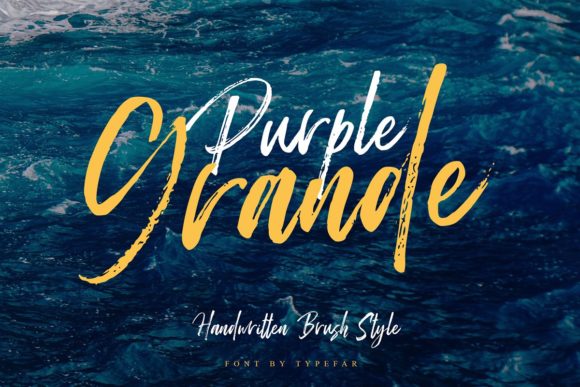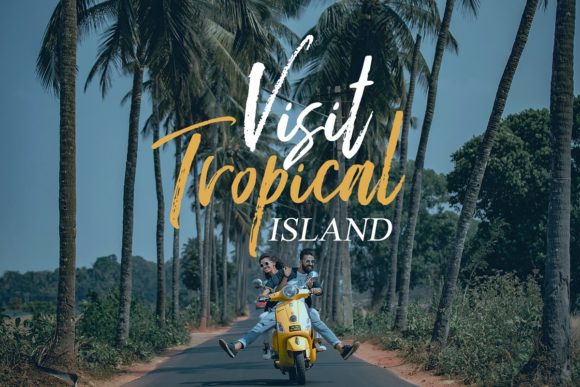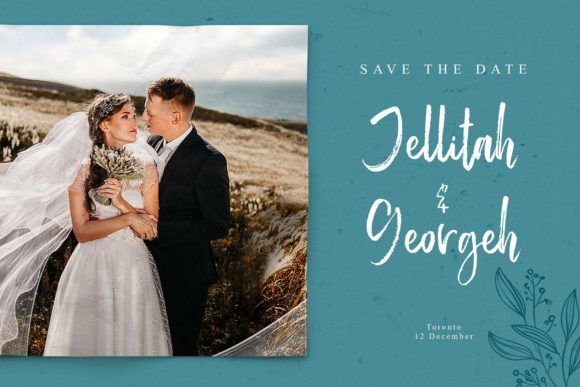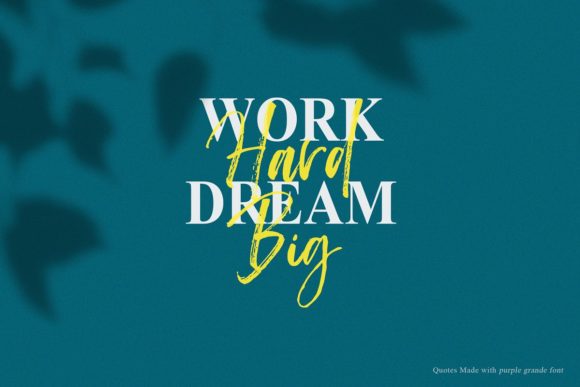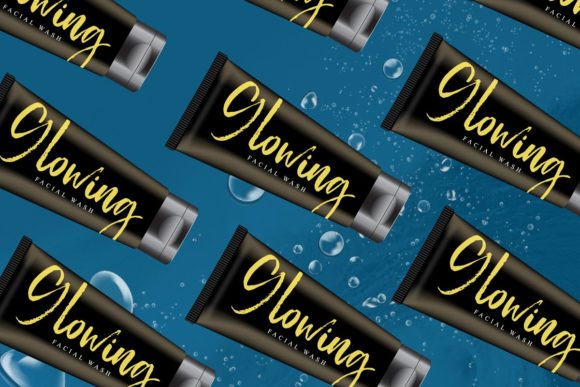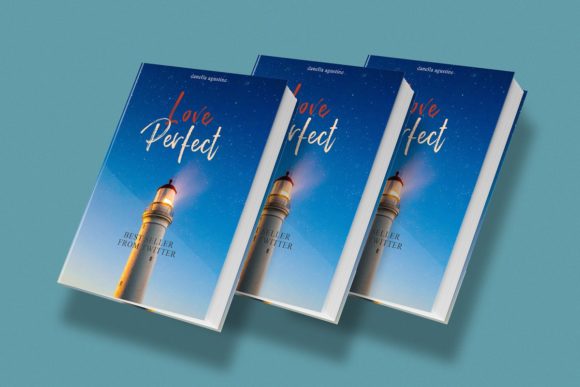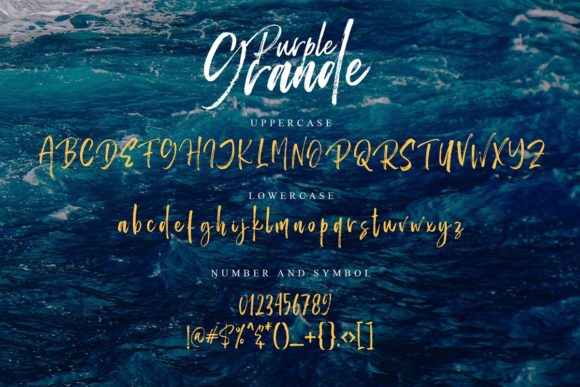
HomeScript FontsPurple Grande Font Script Fonts Purple Grande Font FacebookXPinterestWhatsApp Purple Grande Font Poster 2 Purple Grande Font Poster 3 Purple Grande Font Poster 4 Purple Grande Font Poster 5 Purple Grande Font Poster 6 Purple Grande Font Poster 7 About Purple Grande Font Purple Grande features raw and authentic brush strokes, making it an extremely daring and adventurous script. DOWNLOAD ON CREATIVE FABRICAThis font is sold and delivered by Creative Fabrica. Font Canyon may earn a commission if you buy through this link. People also explored Technocard Font Dark Glitter Font Checkbold Font Roseblack Font Gulalli Font Doodly Font MFC Tattersaw Monogram Rosalyn Paulina Font Darker Marker 301 0 TagsPurple Grande Font Previous articleSyllia FontNext articleOlivier Font LEAVE A REPLY Cancel reply Comment: Please enter your comment! Name:* Please enter your name here Email:* You have entered an incorrect email address! Please enter your email address here Website: Save my name, email, and website in this browser for the next time I comment. Personal Use Free Evelyne Personal Use Free Read more about this font Abuget Free Script Personal Use Free Read more about this font Time for Presents Personal Use Free Read more about this font Manhattan Personal Use Free Read more about this font BLOG Top 10 Handwritten Fonts That Elevate Your Designs Top 10 Handwritten Fonts That Will Elevate Your Designs Handwritten fonts bring a warm, personal touch to every creative project. Whether you're designing logos, invitations,... The 10 Best Handwriting Fonts to Add Personality to Your Designs Transform Your Website: Elevate Your Typography with 7 Best Web Font Generators Modern Sans-Serif Fonts That Brands Love in 2025